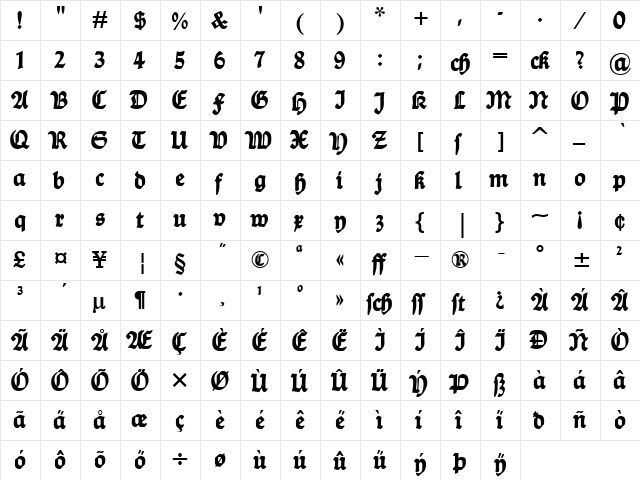
Ballade Bold
| Designer | Dieter Steffmann |
| Copyright | Copyright (c) Typographer Mediengestaltung, 2002. All rights reserved. Halbfette Ballade geschaffen von Paul Renner, 1937. Digitized and hinted by Dieter Steffmann, Kreuztal |
Design Context for Ballade Typeface
Ballade takes a measured approach to typography — its balanced proportions and neutral character make it a reliable workhorse for both digital and print work. The heavy weight commands attention and anchors typographic hierarchies.